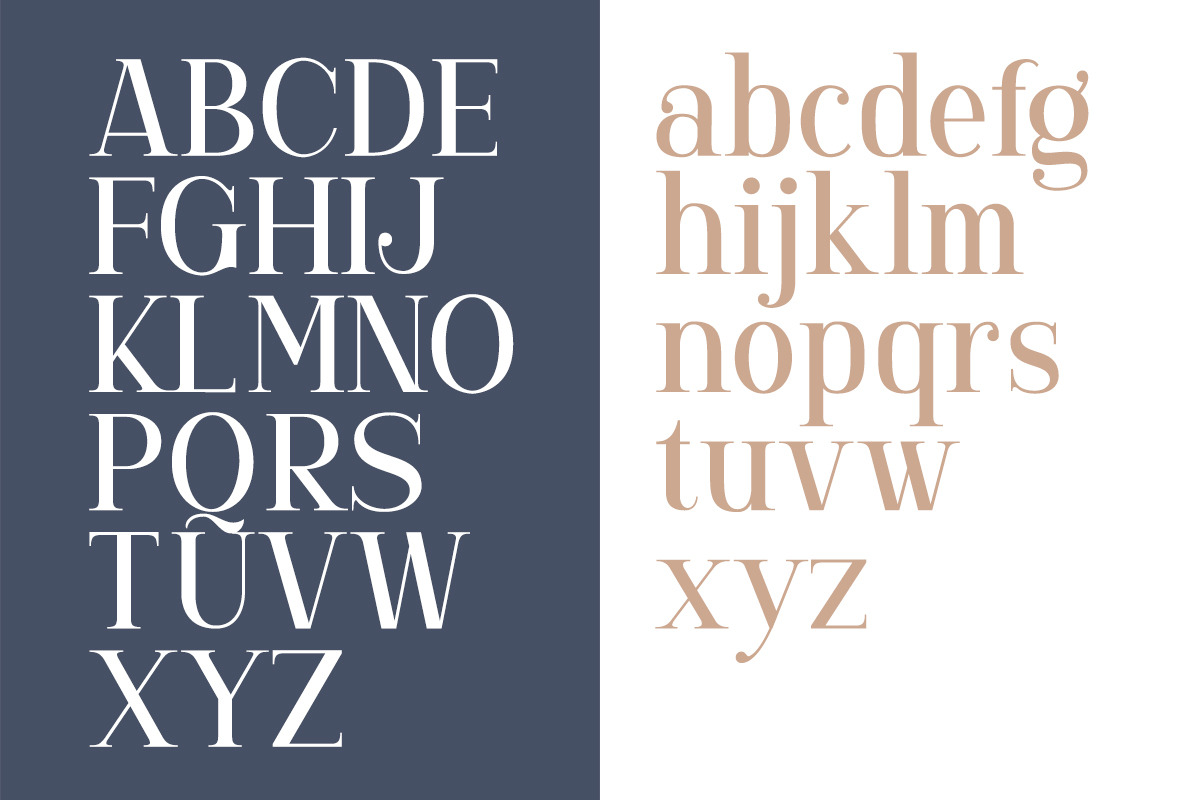
Gorgone - A Versatile Serif
Introducing, Gorgone. A versatile serif that brings the luxury feel. Gorgone is suitable for you who needs a typeface for headline, logotype, apparel, invitation, branding, packaging, advertising etc. This typeface is comes in uppercase, lowercase, punctuations, symbols & numerals, stylistic set alternate, ligatures, etc also support multilingual and already PUA encoded.
Foreign Languages Support: ÀÁÂÃÄÅÇÈÉÊËÌÍÎÏÐÑÒÓÔÕÖØÙÚÛÜÝßàáâãäåæçèéêëìíîïðñòóôõöøùúûüýÿ